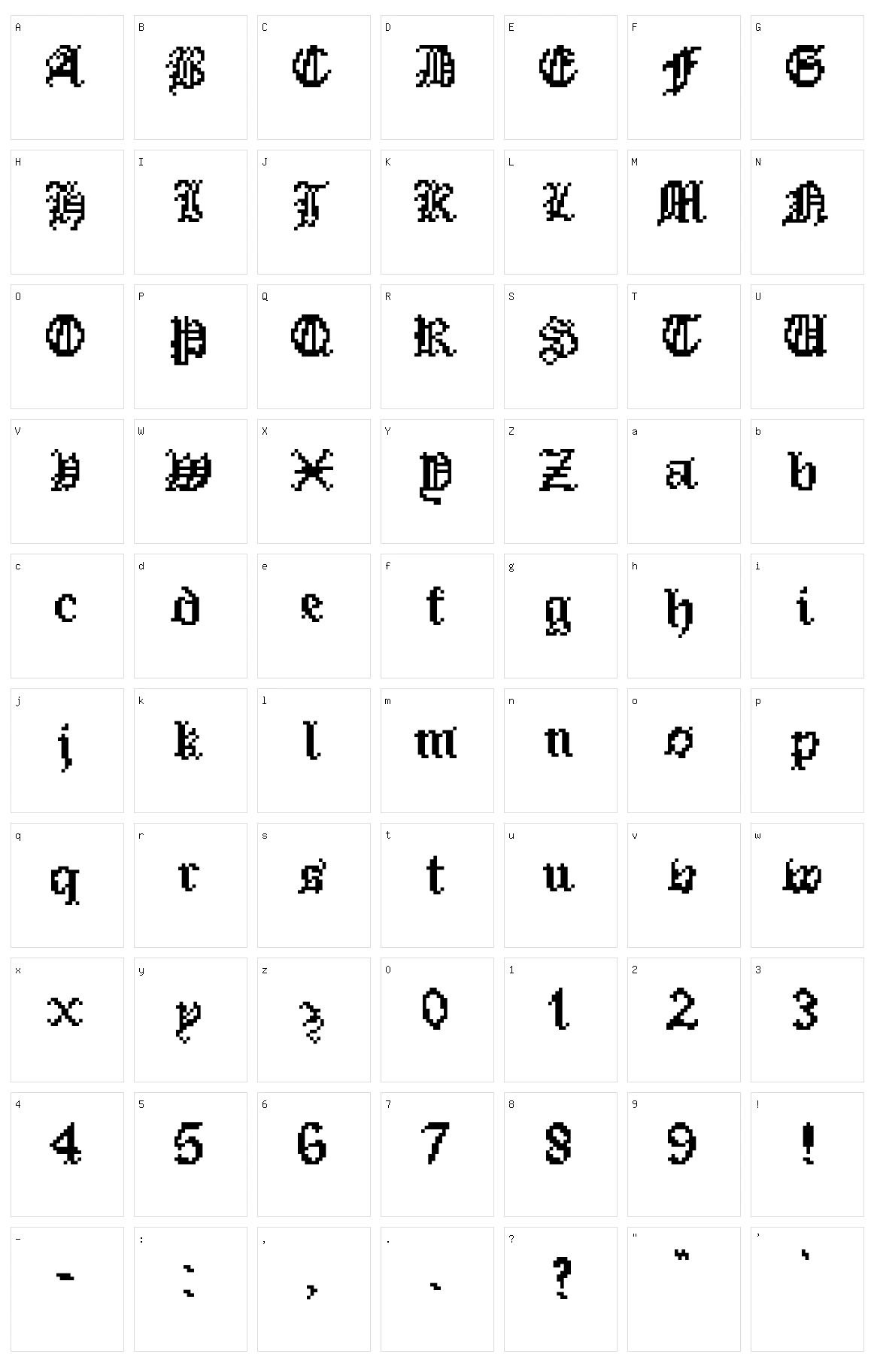
Pixeled English
Designed by: kajetan
PIXELED ENGLISH FONT
"Pixeled English Font" is a free (for personal use)/donationware (commercial use) pixel/bitmap font inspired
by William Caslon's typefaces and the Old English Font.